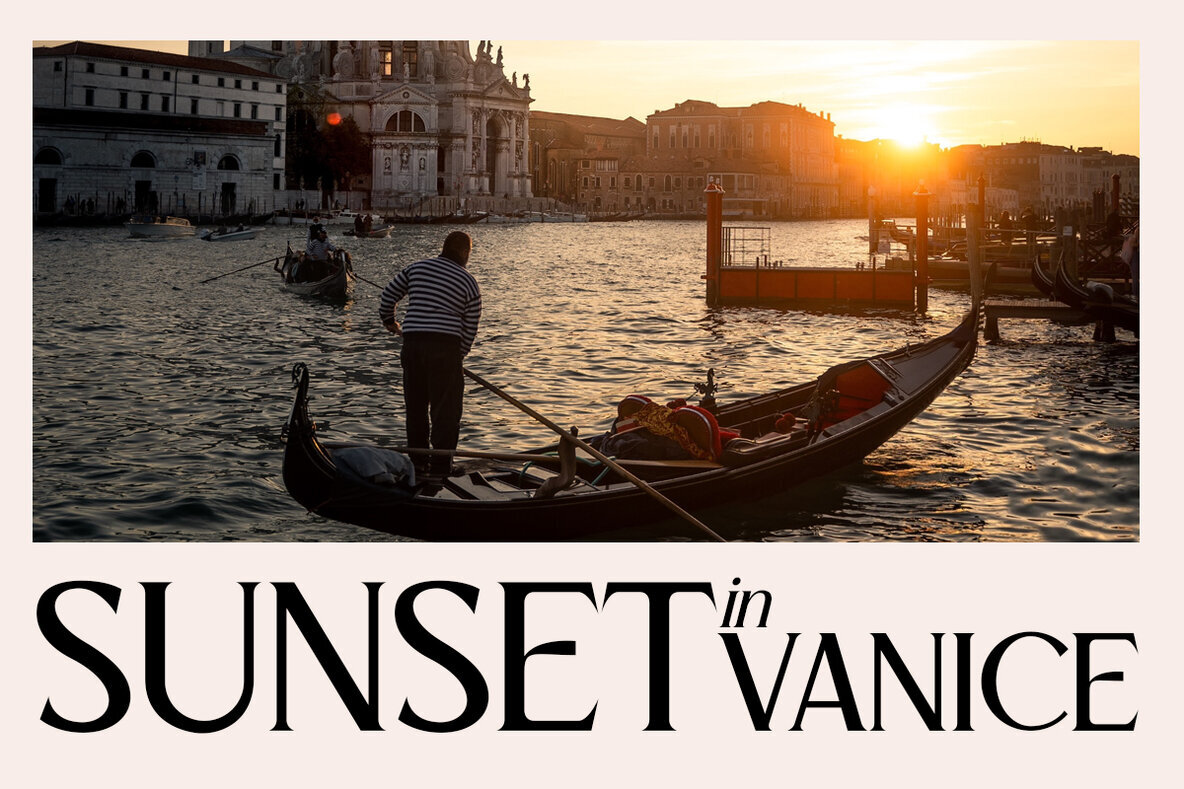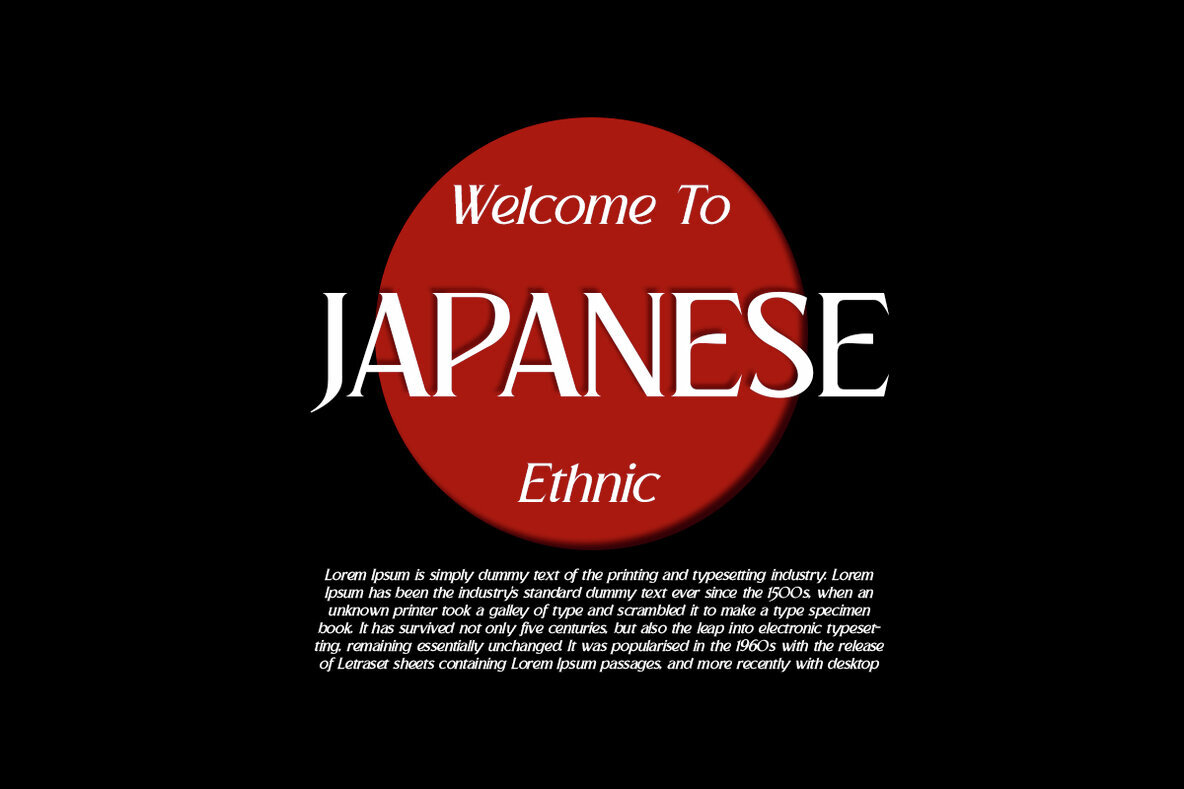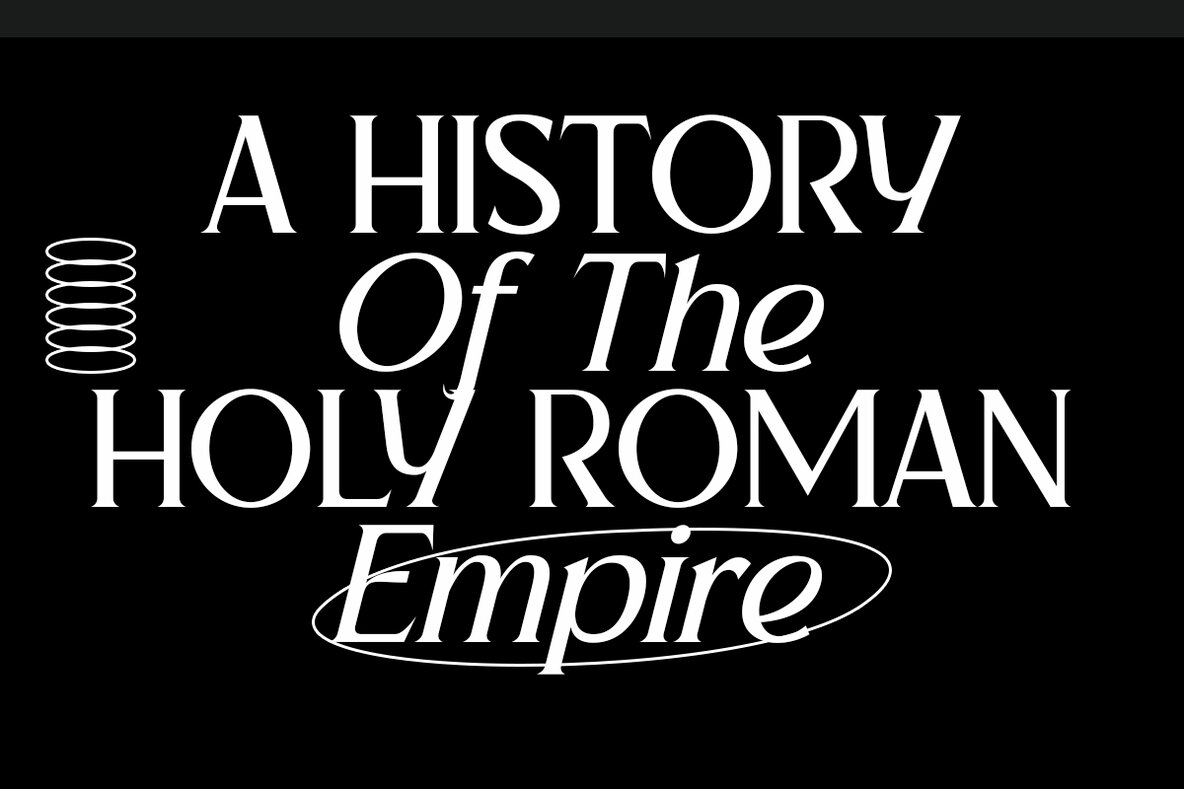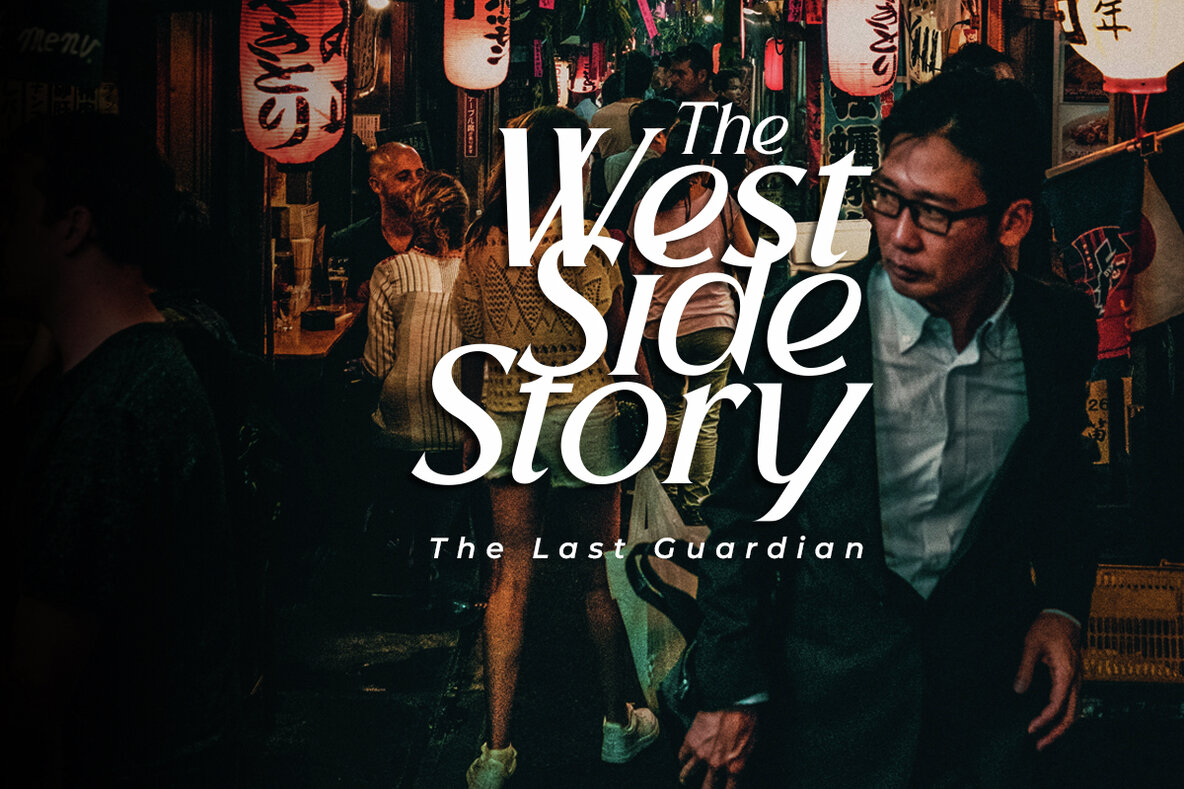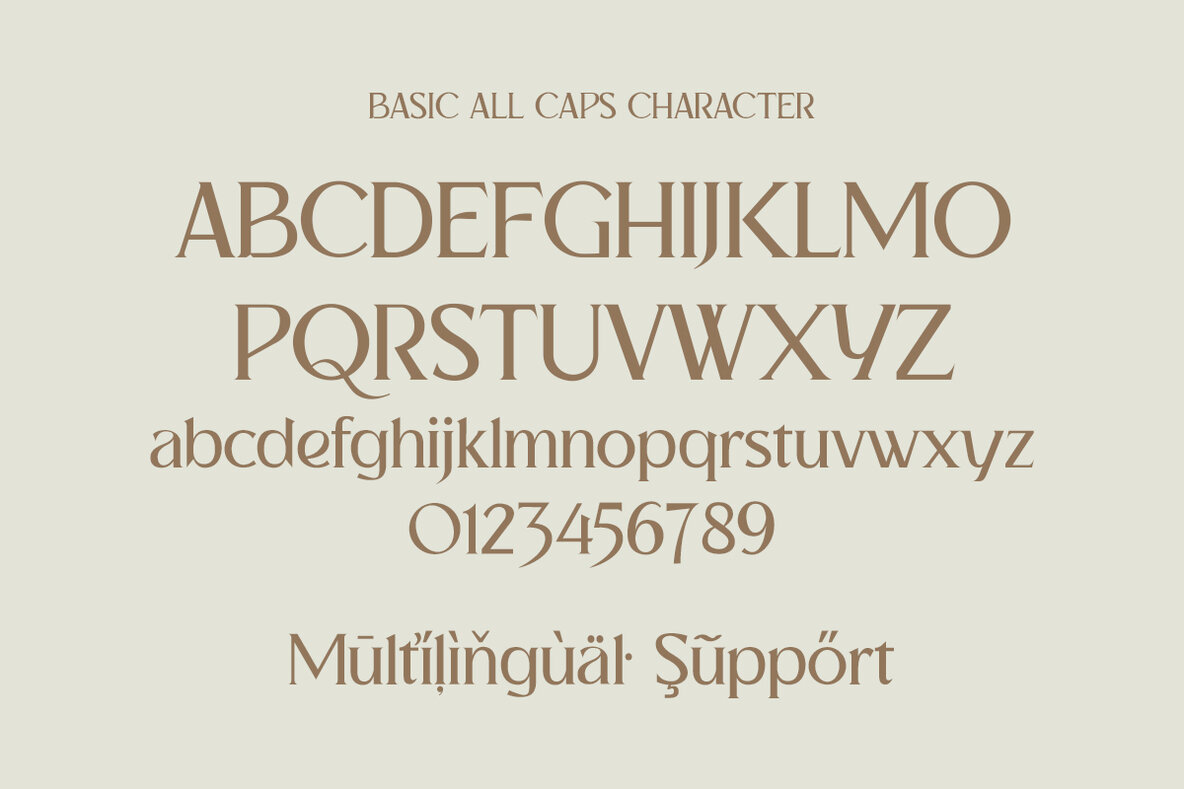
Brushelva Font
Brushelva by Lettercorner Studio is a refined sans serif font that captures the essence of classic design. Its simplicity and thin structure provide an elegant and classy impression, making it a versatile choice for various applications.Brushelva: Classic Sans Serif Elegance